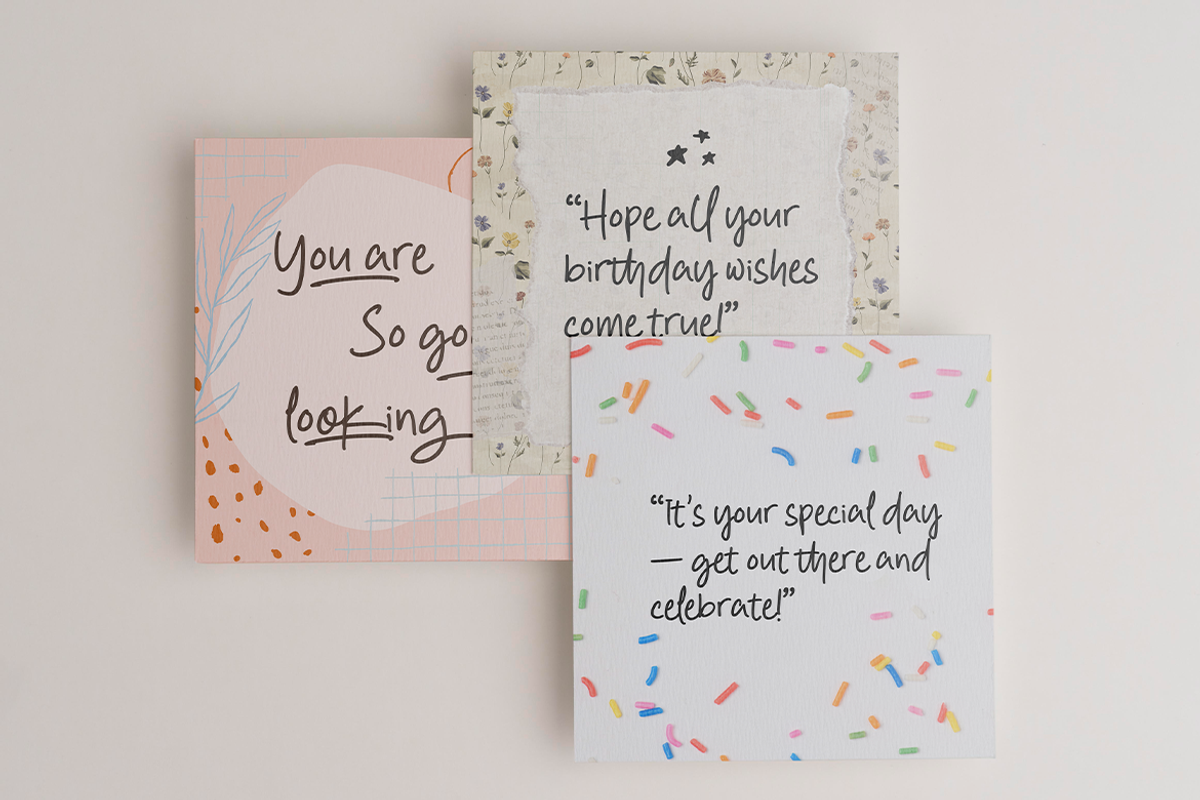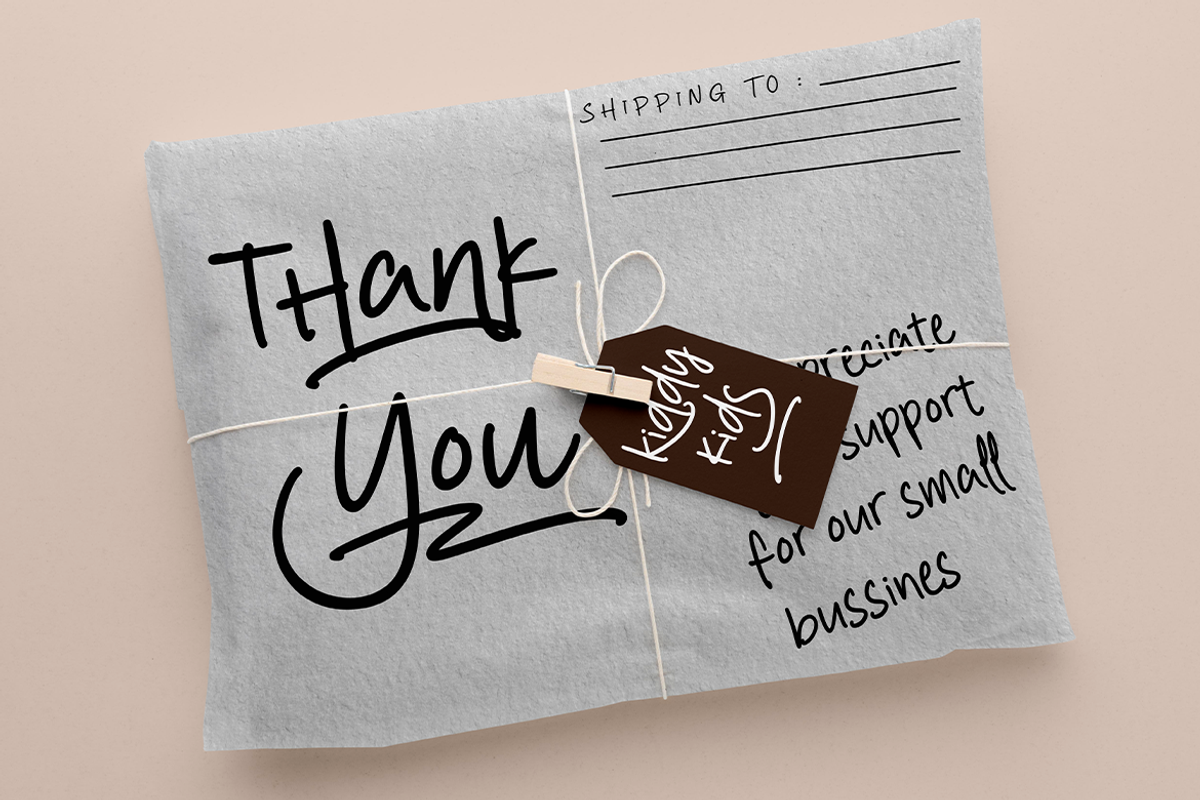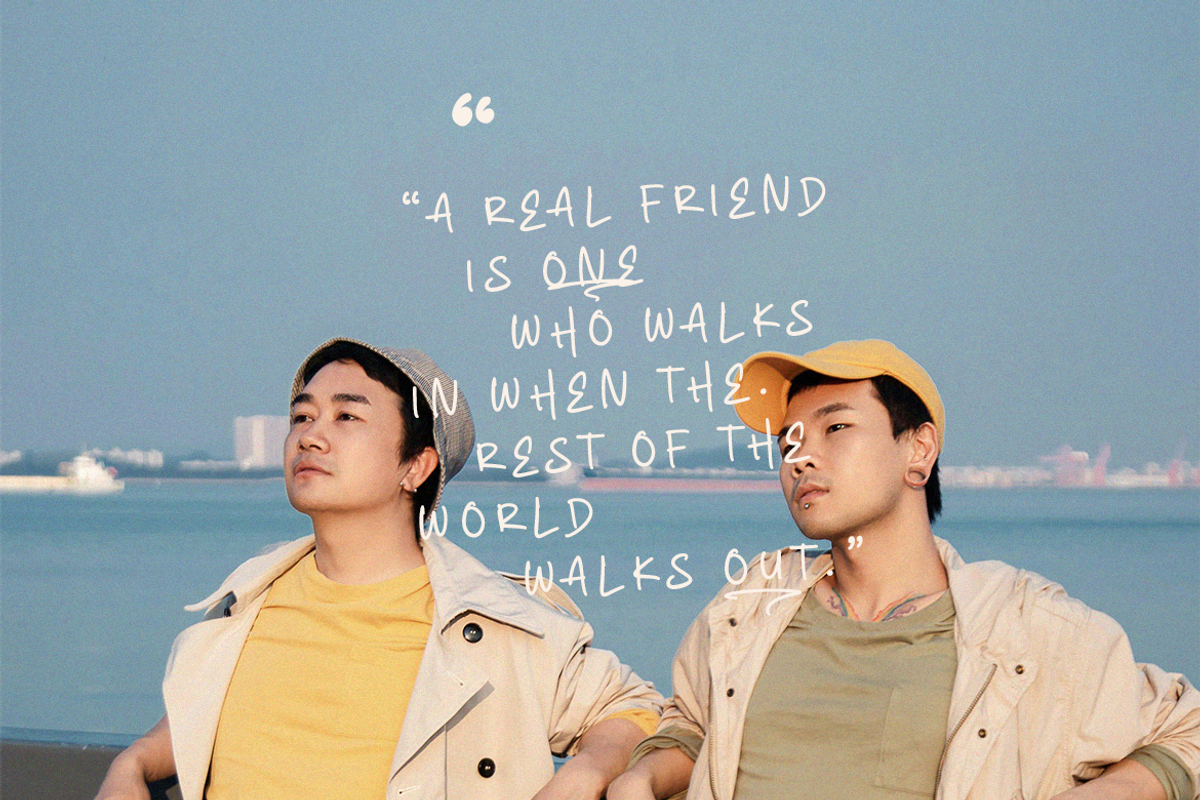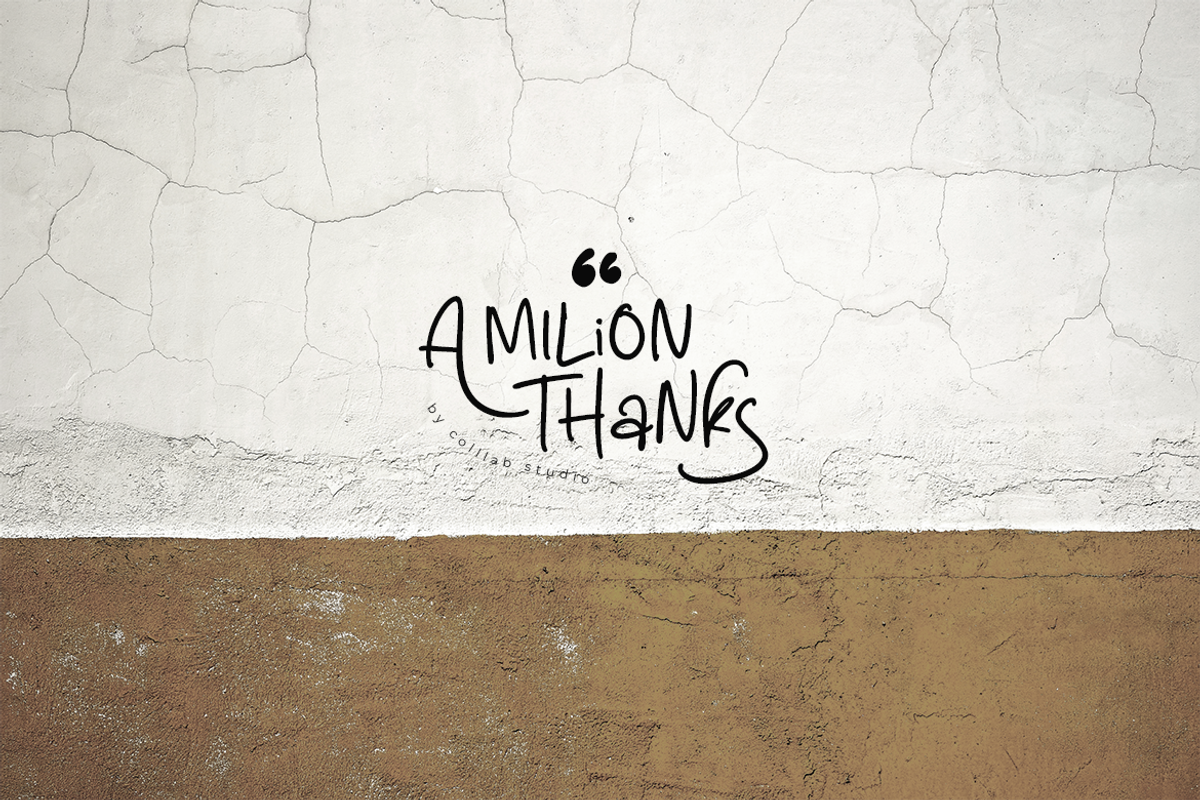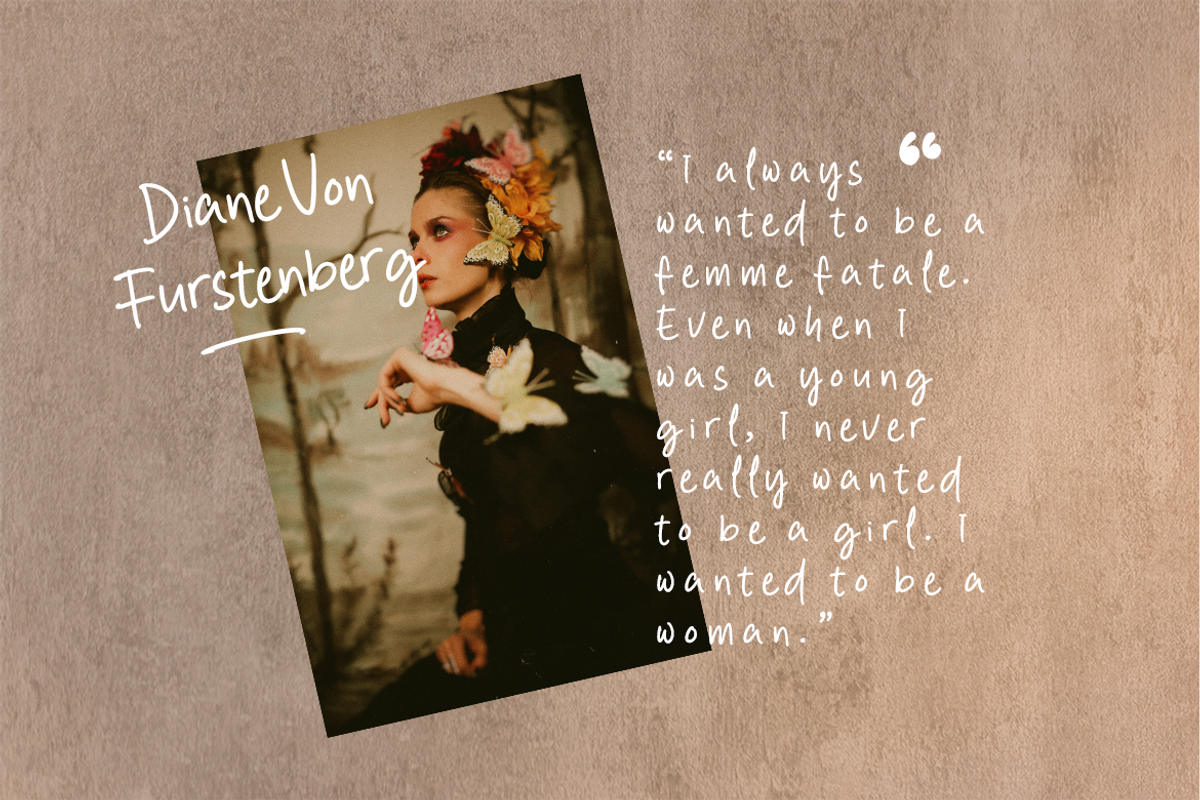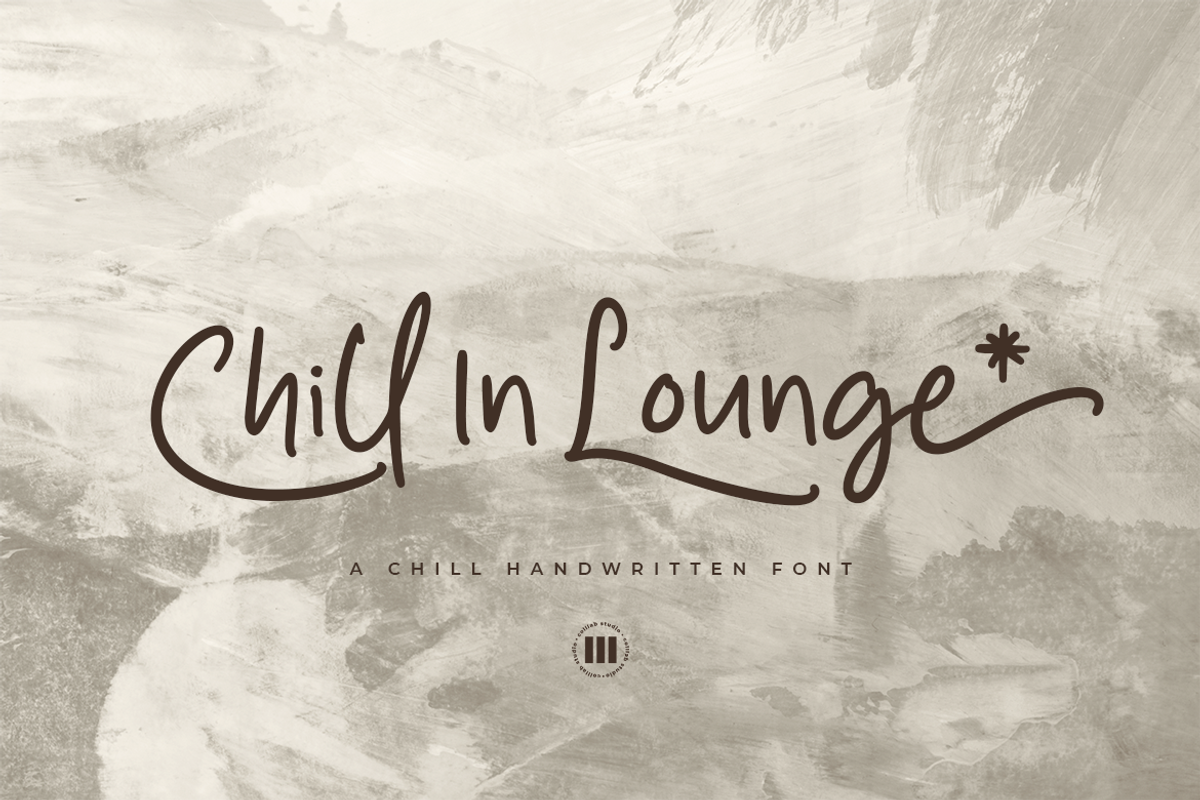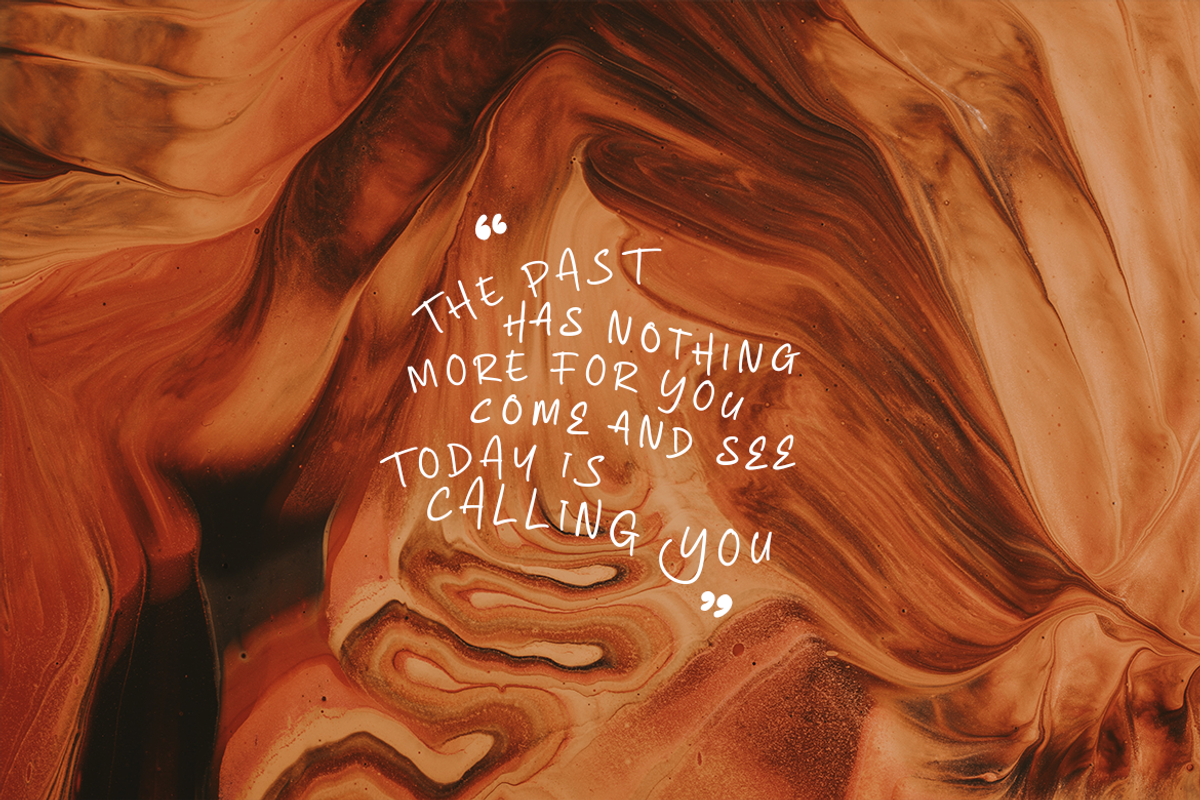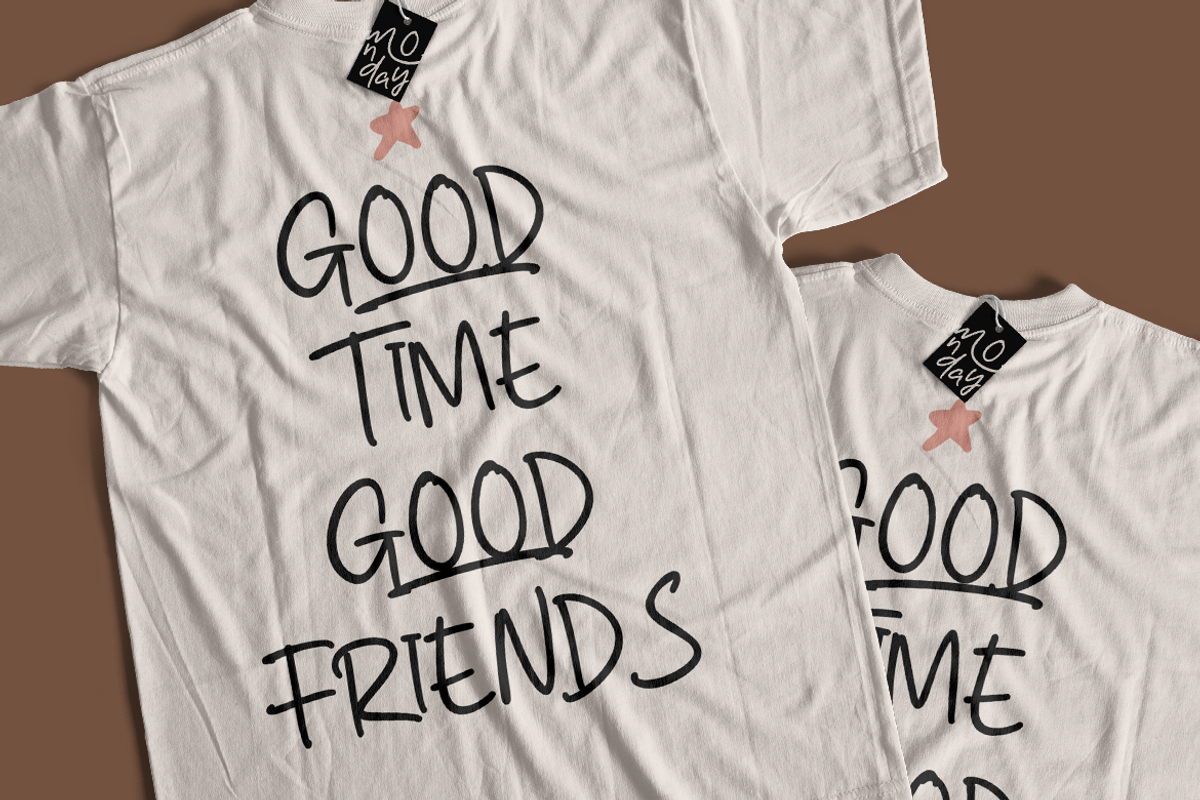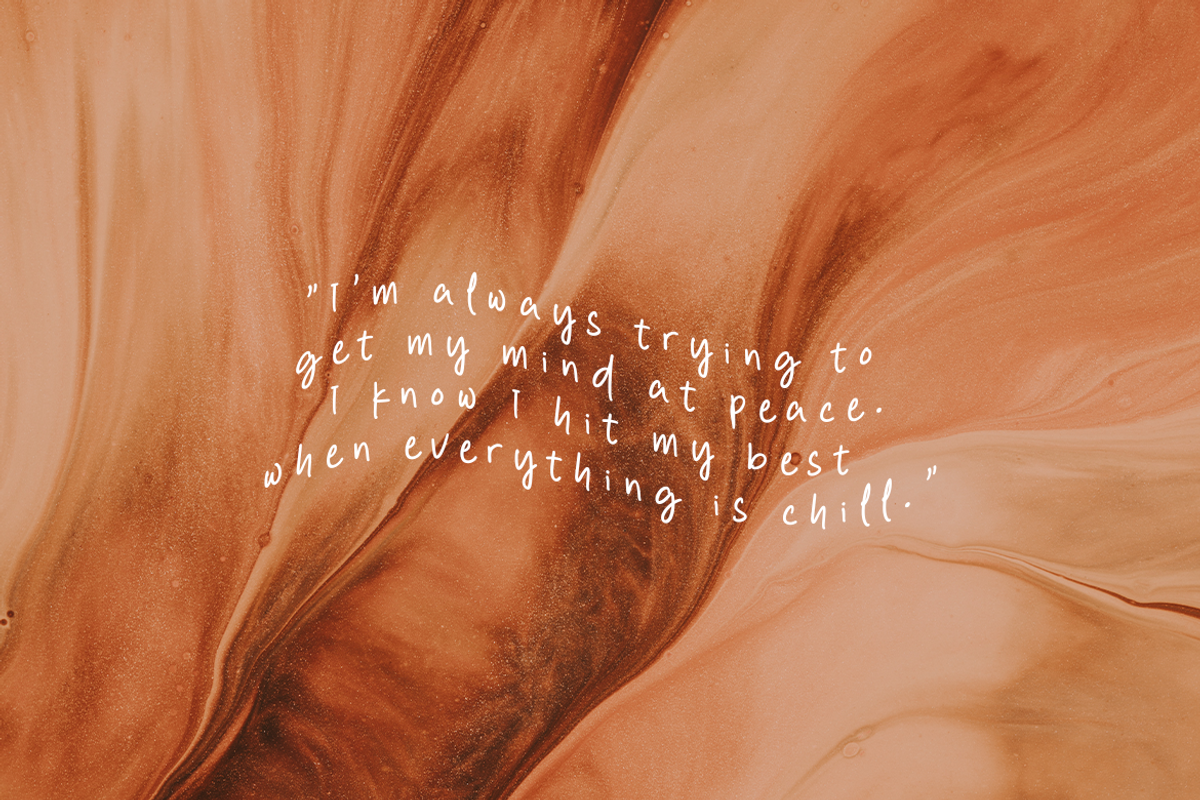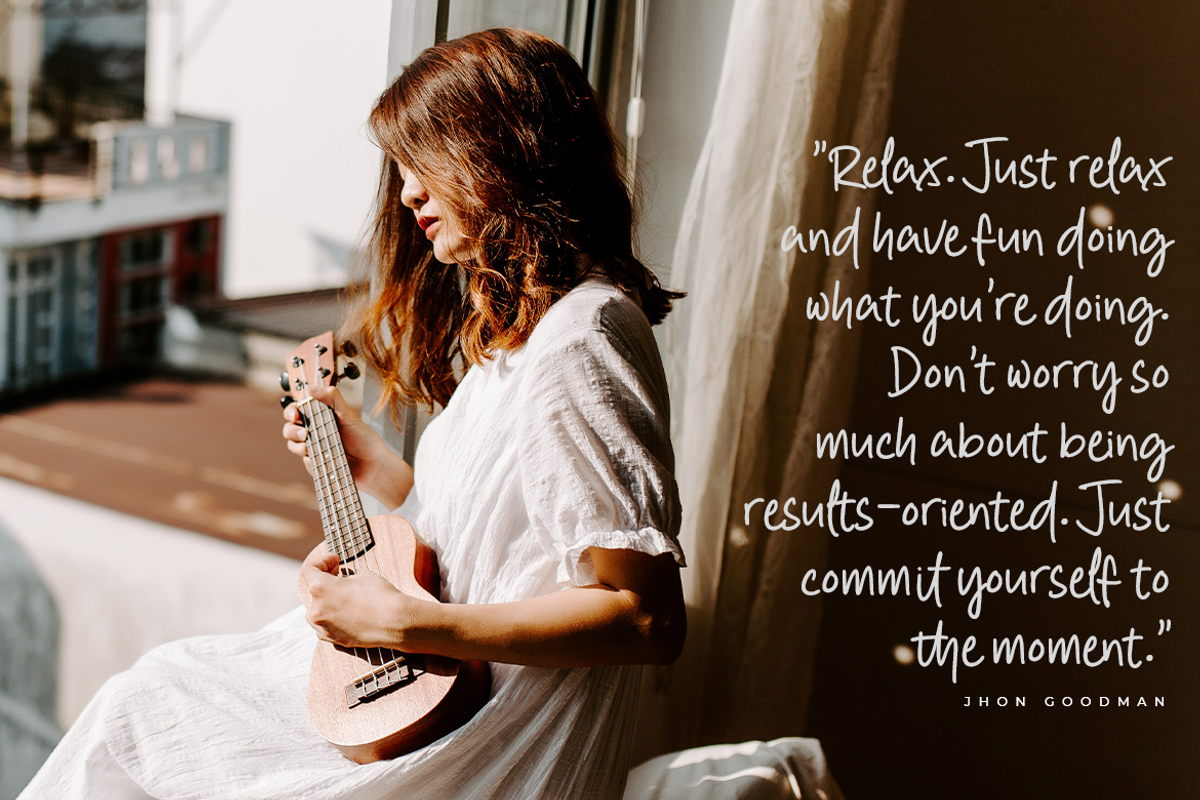
Chill in Lounge | A Quote Font
You’re at the point where you want to use quotes in social media posts and make quote love on Instagram.
Not a problem at all, Introducing Chill In Lounge, We provide you with a font so lovely you won’t mind using it enough times to cause your followers and friends to get sick of it.
Smooth curves and stoke-like loops makes a casual and natural look that’s perfect for quotes, lettering, logos, social media posts even on merchandise.
Catch more inspiration and create more stunning designs with Chill In Lounge.
- 403 Glyphs,
- Ligatures and swashes
- 4 sets Stylistic alternate